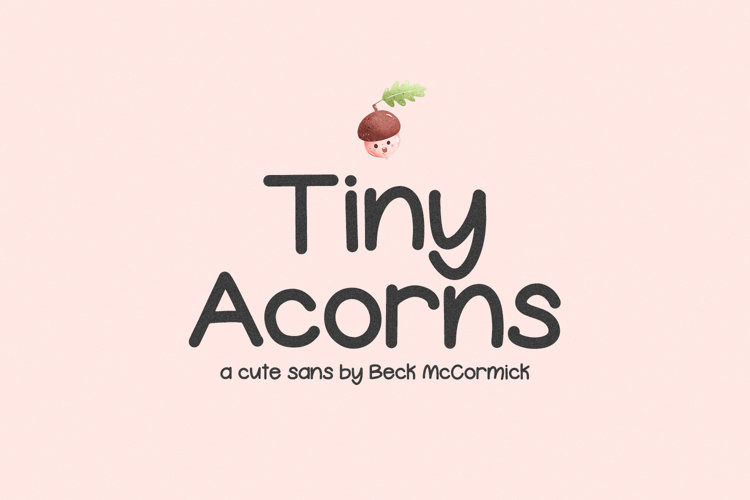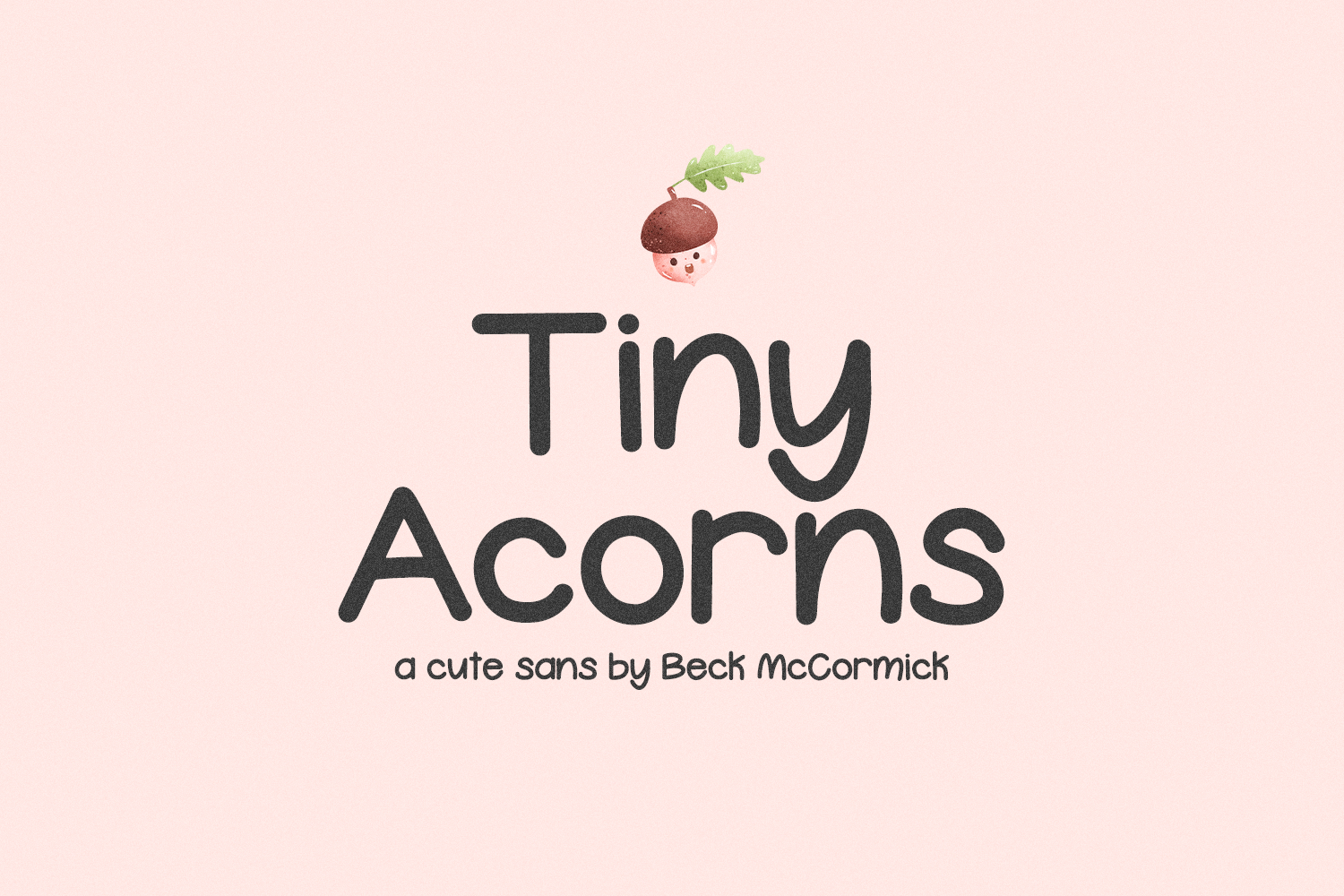
Tiny Acorns Sans Font
Tiny Acorns Sans is an adorable handwritten sans font. This font is neat & tidy, with a child-like quality. Because of this, it would make a great addition to a teacher’s font collection, children’s books, or classroom decor. Tiny Acorns Sans is also perfect for logos & branding, greeting cards, painted banners, digital planners, note-taking apps, Canva, Cricut projects, Silhouette projects, designing SVG files, laser cutting projects, & more.